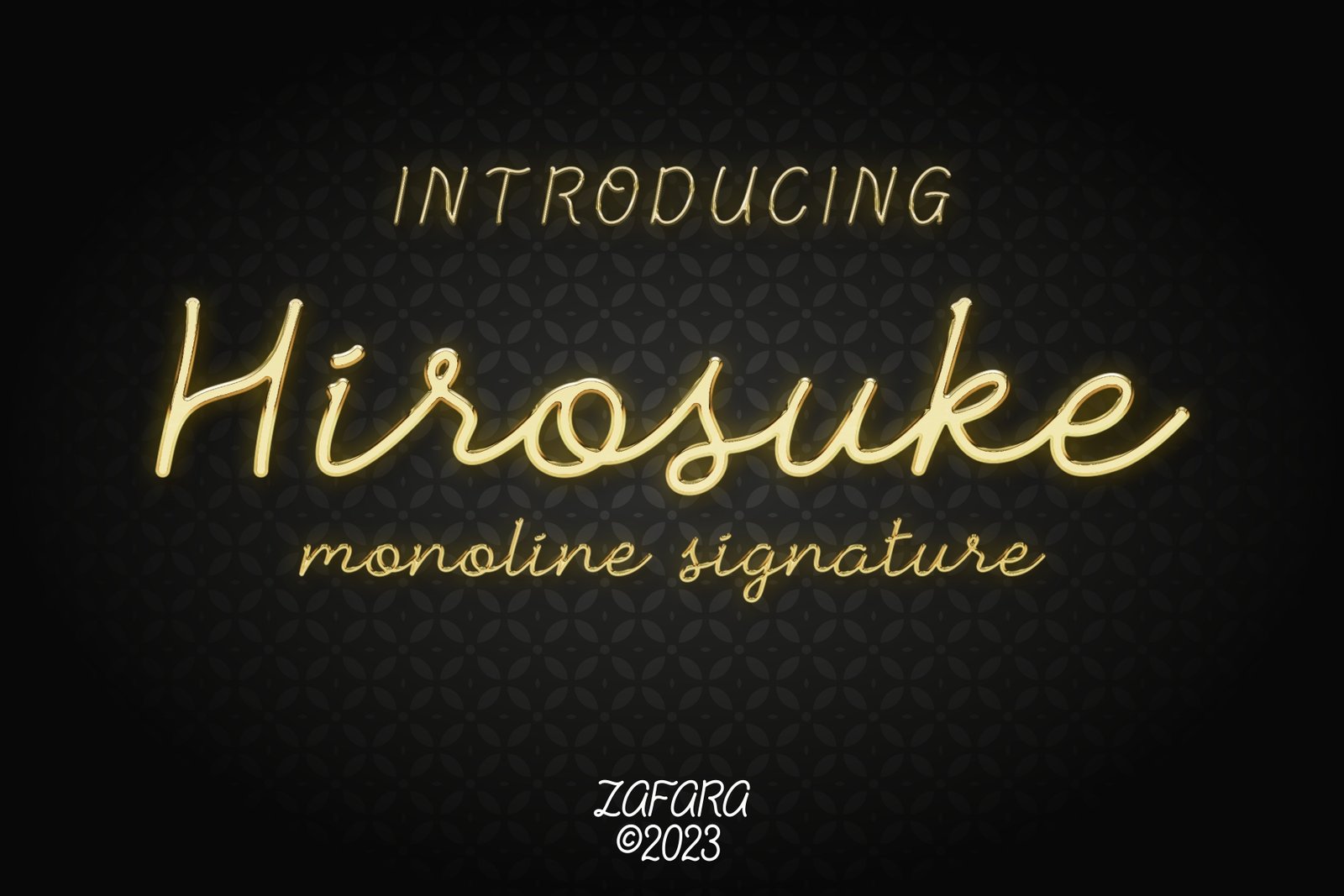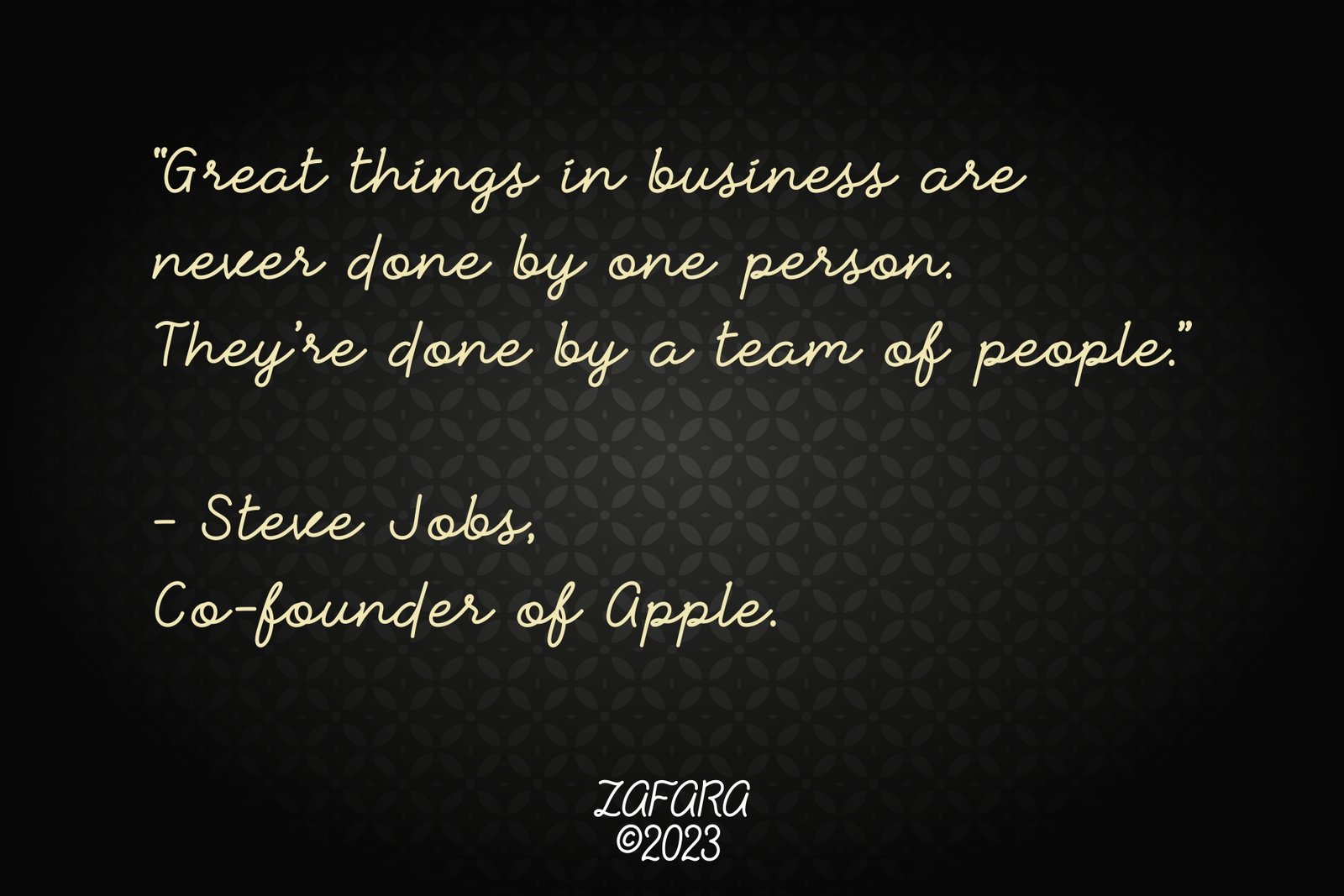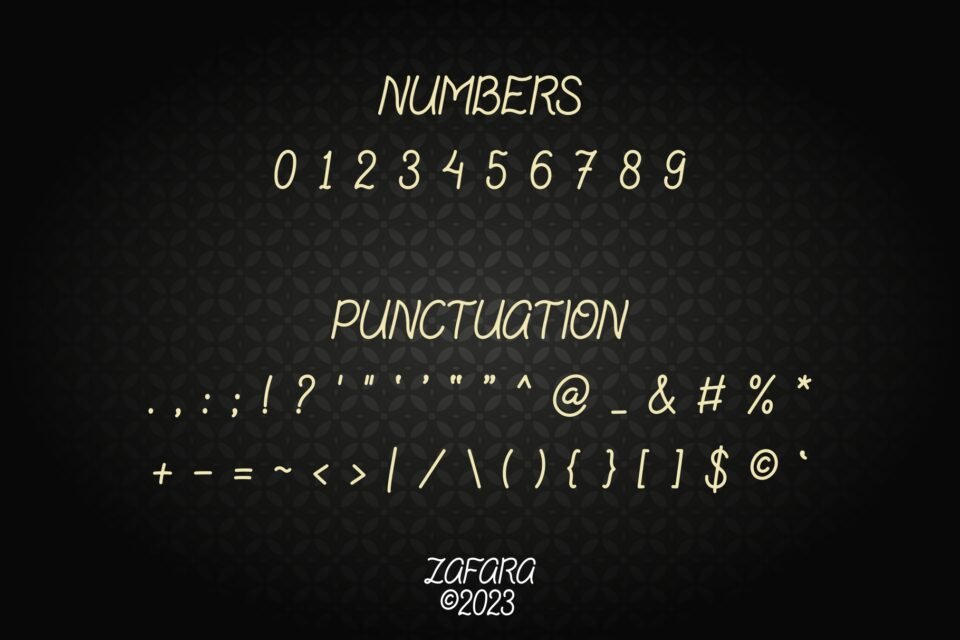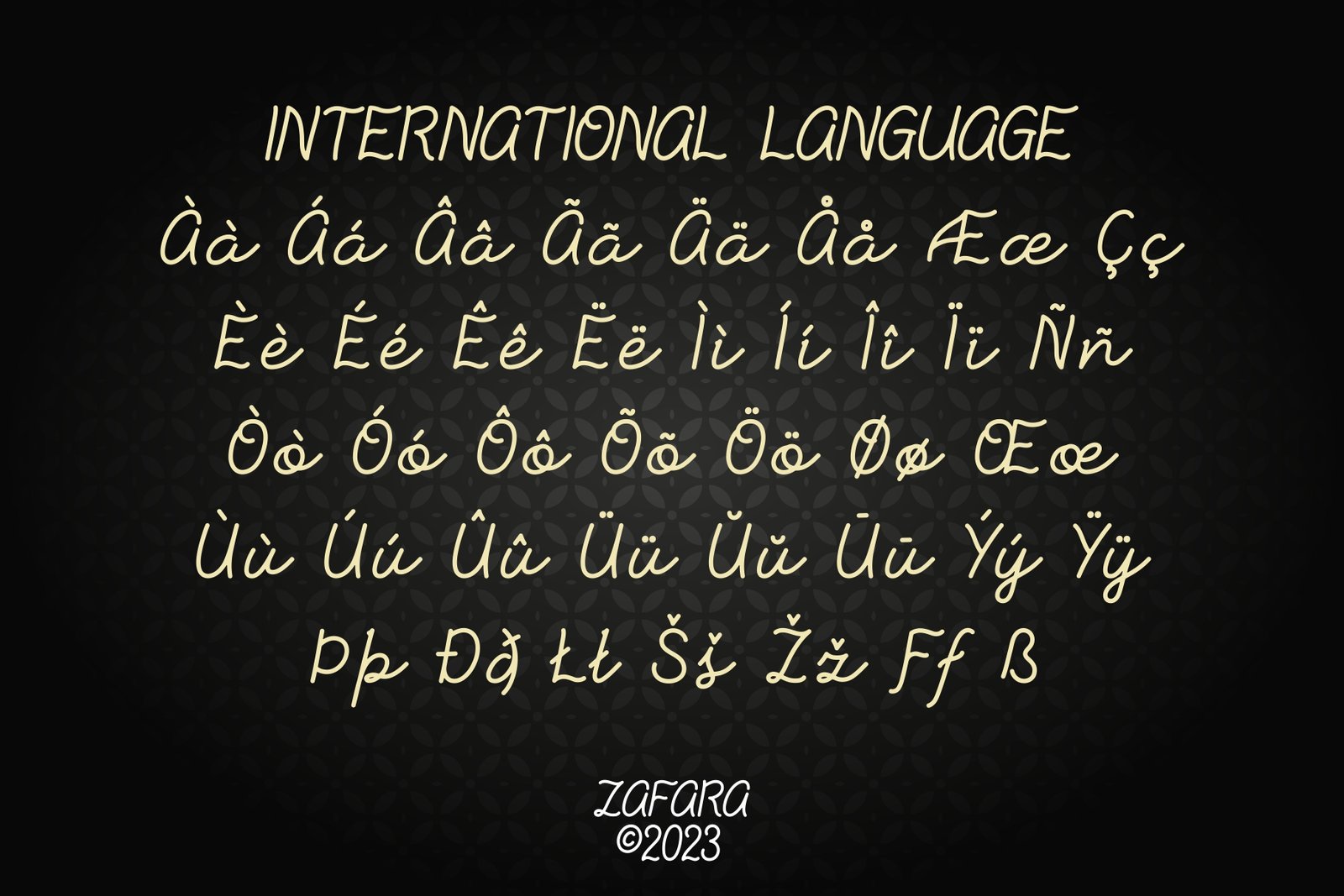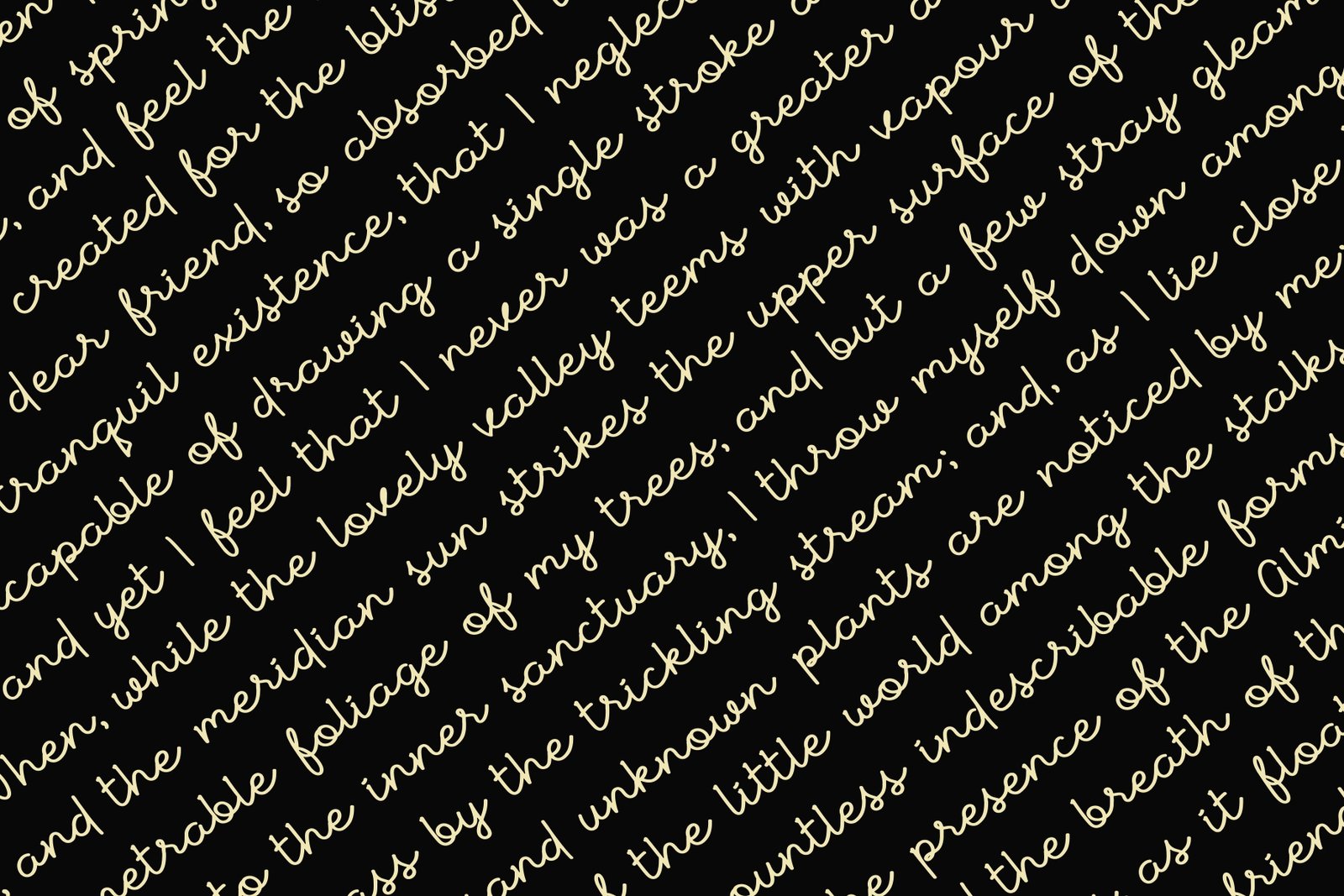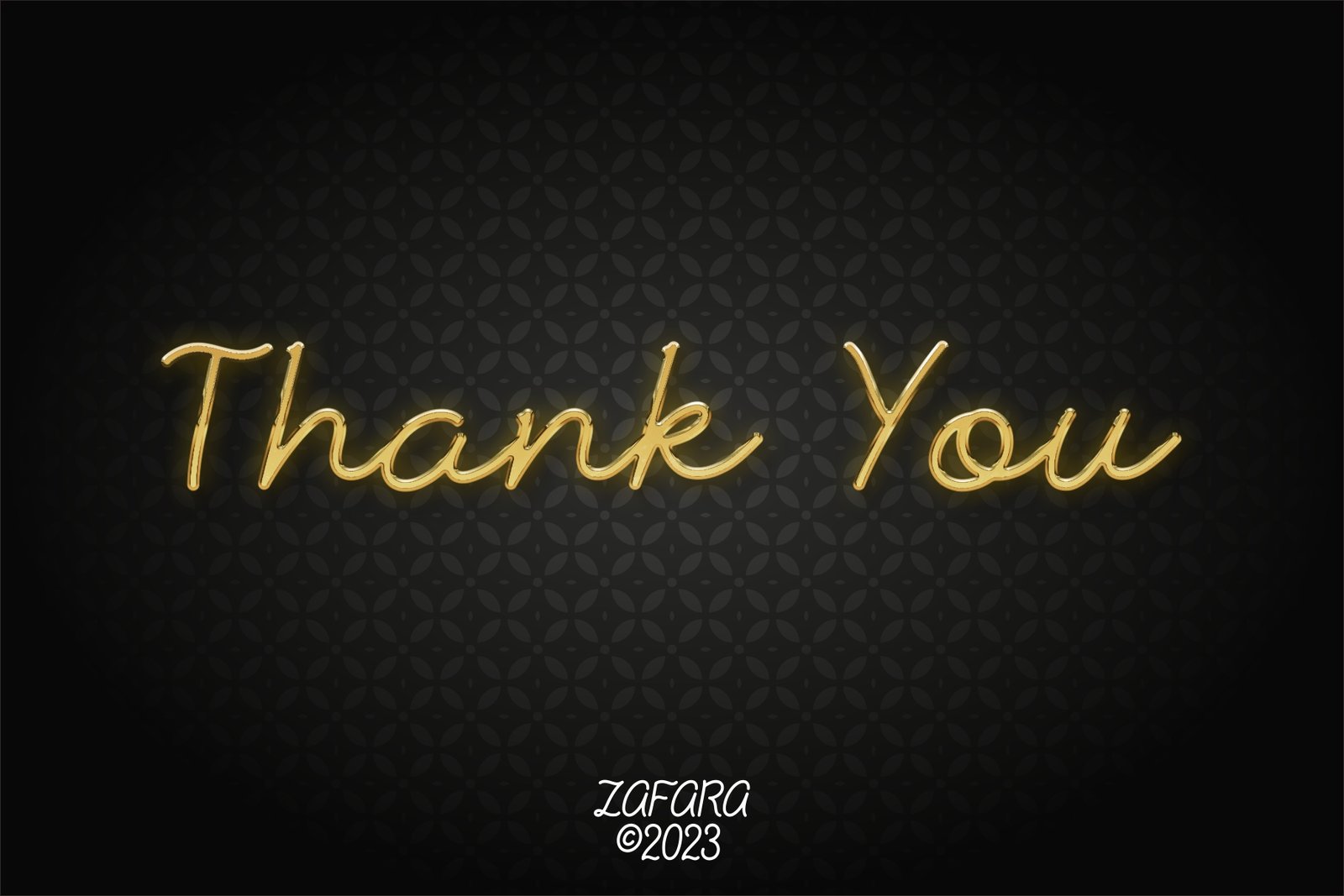
Hirosuke monoline signature font with a glowing gold effect, perfect for branding, quotes, and stylish designs.
A quote from Steve Jobs using the Hirosuke monoline signature font, "Great things in business are never done by one person. They're done by a team of people."
Full alphabet for the Hirosuke monoline signature font, showing both uppercase and lowercase letters from A to Z.
Example of numbers and punctuation characters available in the Hirosuke monoline signature font.
International language characters and glyphs supported by the Hirosuke monoline signature font.
A sample text passage using the Hirosuke monoline signature font to demonstrate its readability in longer form content.
A "Thank You" message written in the elegant Hirosuke monoline signature font, suitable for end credits or closing messages.
Hirosuke monoline signature font with a glowing gold effect, perfect for branding, quotes, and stylish designs.
A quote from Steve Jobs using the Hirosuke monoline signature font, "Great things in business are never done by one person. They're done by a team of people."
Full alphabet for the Hirosuke monoline signature font, showing both uppercase and lowercase letters from A to Z.
Example of numbers and punctuation characters available in the Hirosuke monoline signature font.
International language characters and glyphs supported by the Hirosuke monoline signature font.
A sample text passage using the Hirosuke monoline signature font to demonstrate its readability in longer form content.
A "Thank You" message written in the elegant Hirosuke monoline signature font, suitable for end credits or closing messages.
Hirosuke monoline signature font is is a meticulously crafted typeface designed to emulate an authentic, flowing handwritten script font. It captures the beauty and spontaneity of natural handwriting with its smooth, connected monoline strokes, giving every word a personalized and artistic touch. This elegant and versatile font is perfect for various high-end applications, including sophisticated personal branding, bespoke wedding invitations, stylish greeting cards, unique packaging design, and any creative design project that demands a unique, personal touch. Its dynamic and clean style ensures readability while providing a powerful visual impact, ranging from elegantly sophisticated to charmingly whimsical. Hirosuke is built to provide an instant, premium feel to your work.
• Uppercase & lowercase
• Numbers & punctuation
• International language
Hirosuke – Monoline Signature
Hirosuke monoline signature font is a meticulously crafted typeface designed to emulate an authentic, flowing handwritten script font. This elegant and versatile font is perfect for various applications, including sophisticated personal branding, bespoke invitations, and any design project that demands a unique, personal touch.